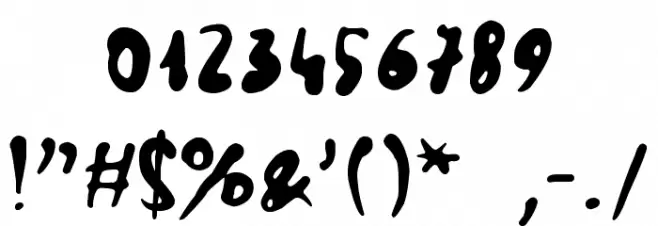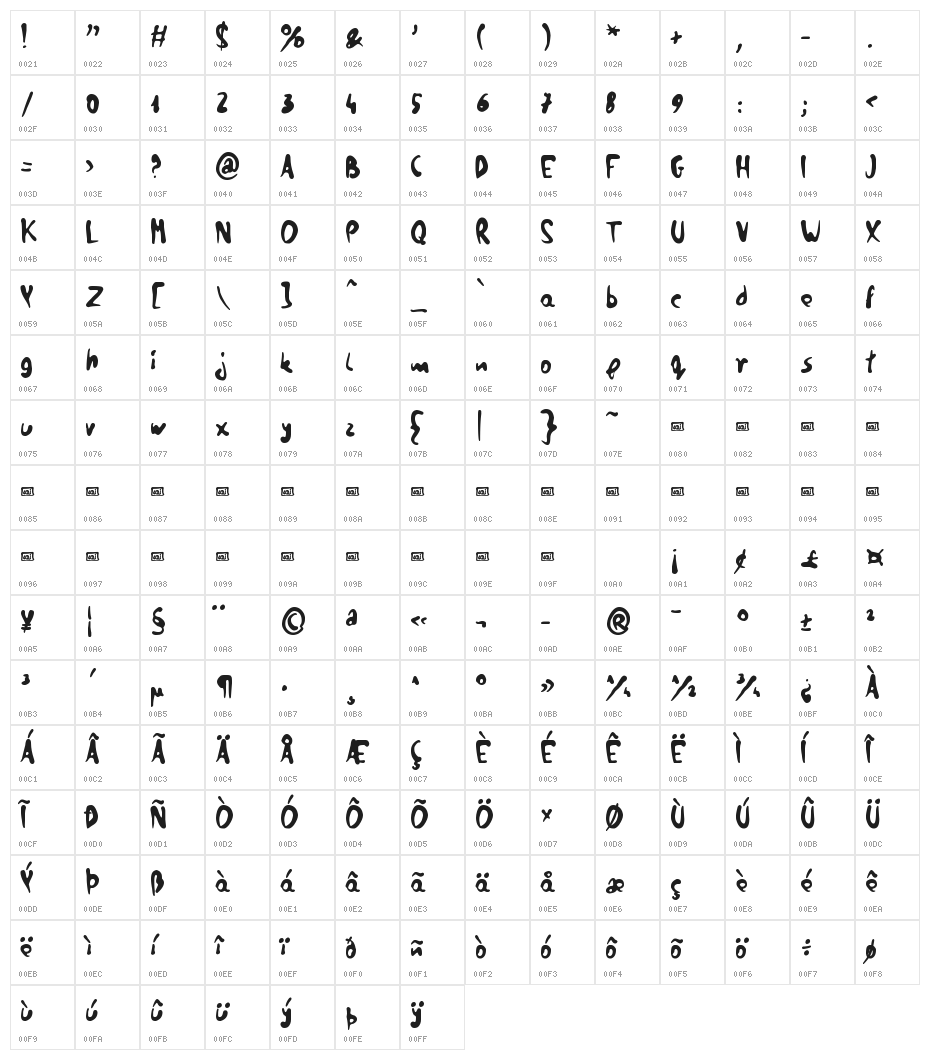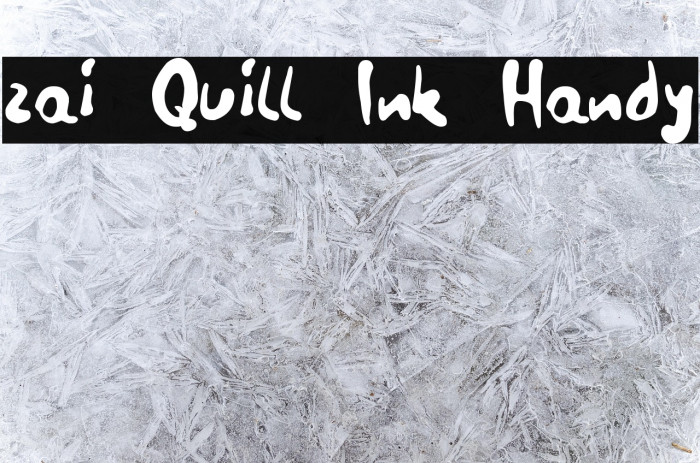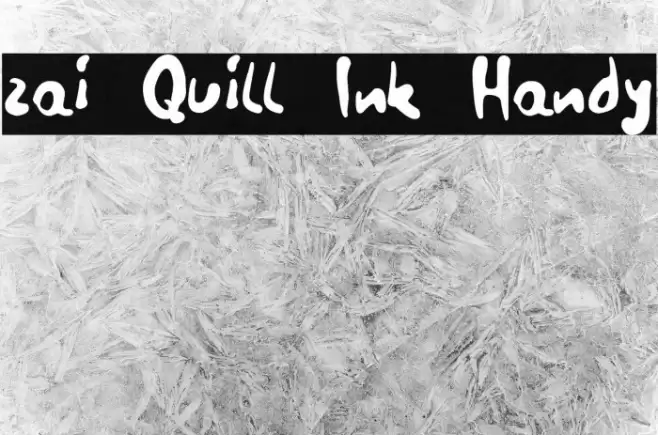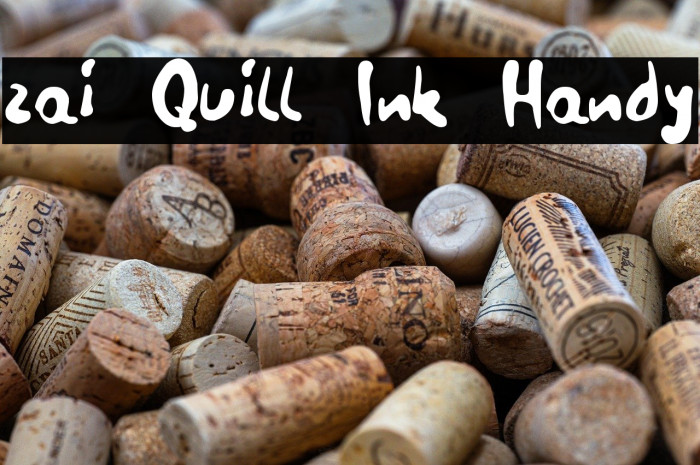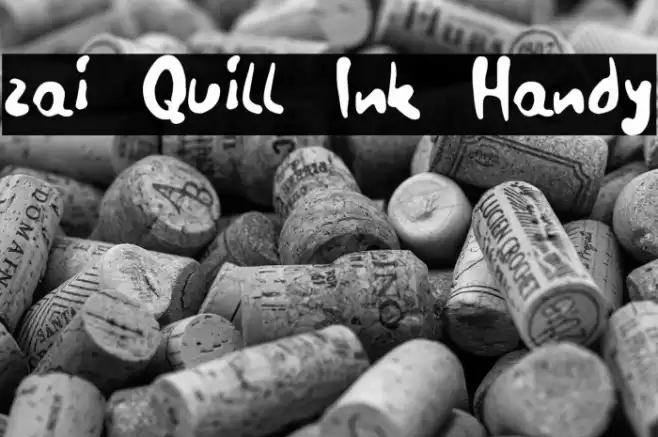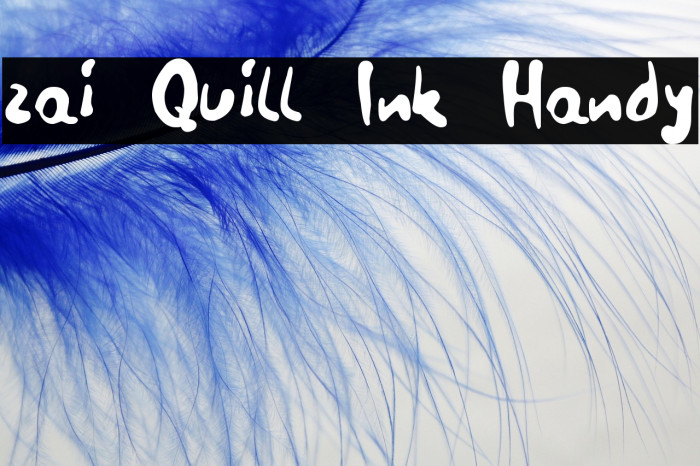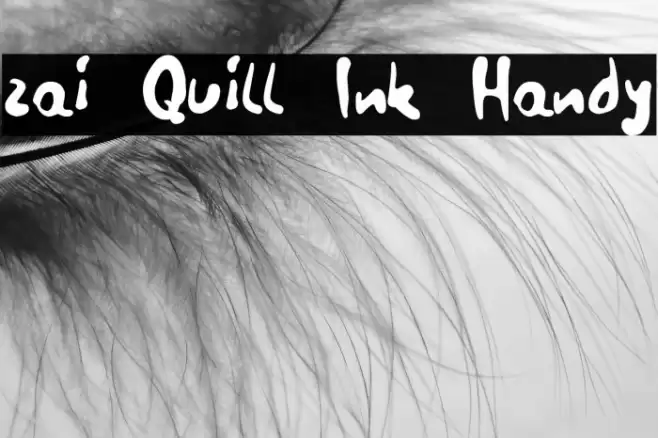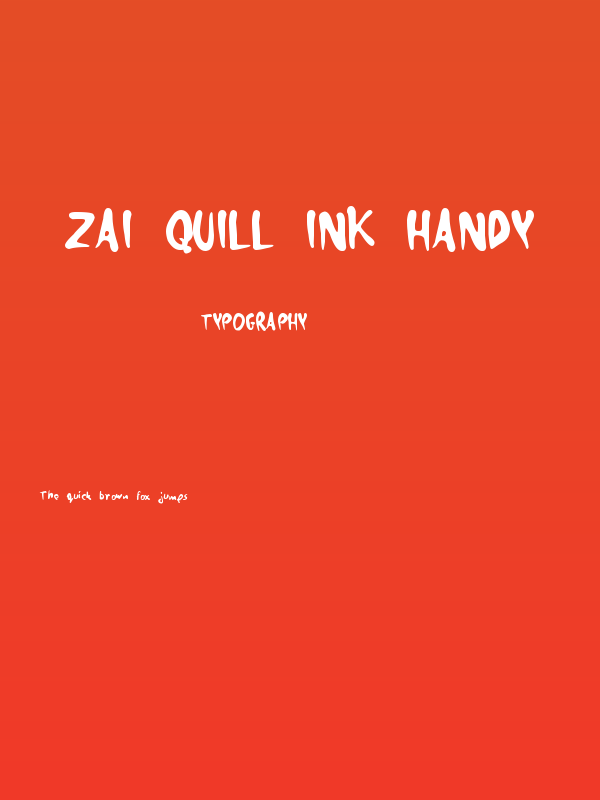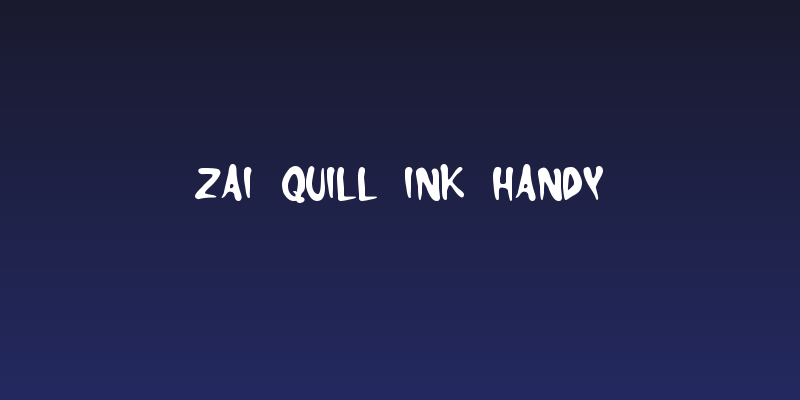
zai Quill Ink Handy Font
zai Quill Ink Handy Description
This font exudes a playful and artistic vibe, reminiscent of hand-drawn ink lettering. The characters are bold and slightly irregular, giving them a whimsical and organic feel. The strokes vary in thickness, adding a dynamic and lively touch to the text. The uppercase and lowercase letters maintain a consistent style, with rounded edges and a casual flair. The numbers and special characters follow the same aesthetic, ensuring a cohesive look across all elements. This font is perfect for projects that require a personal and creative touch, such as invitations, posters, or branding for artistic ventures.
| Proposed Projects | Ideal for creative projects like invitations, posters, and artistic branding. |